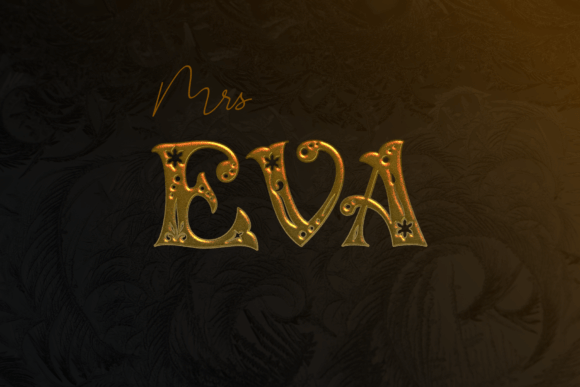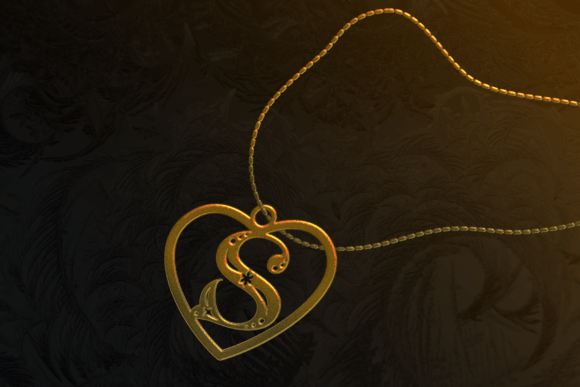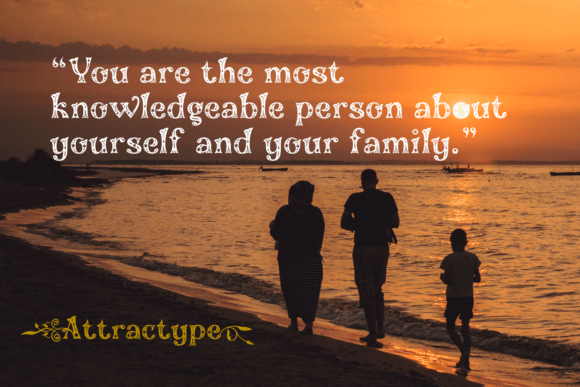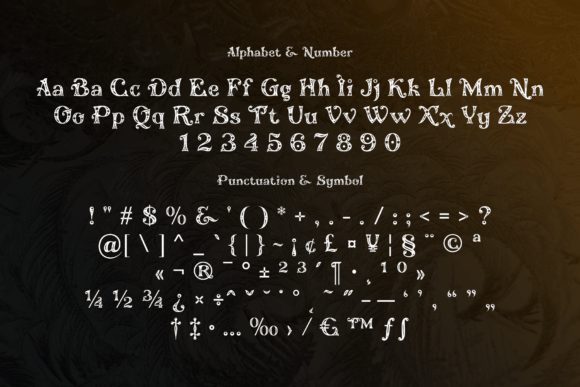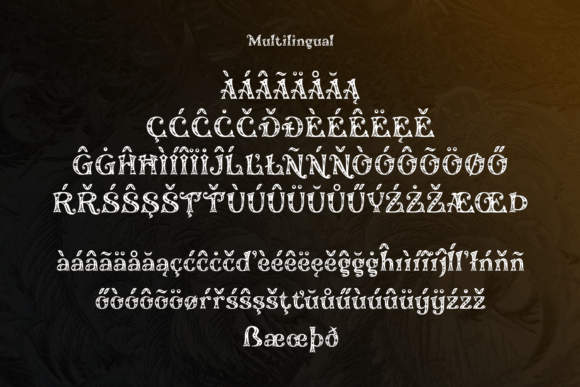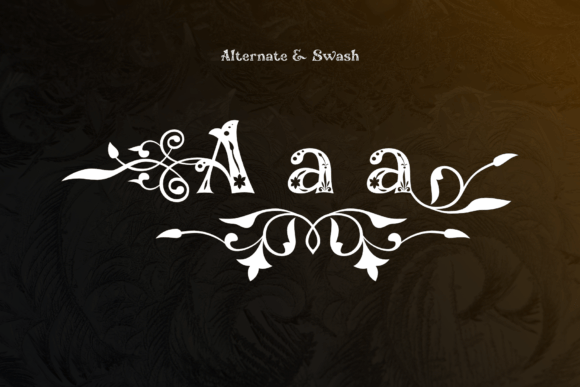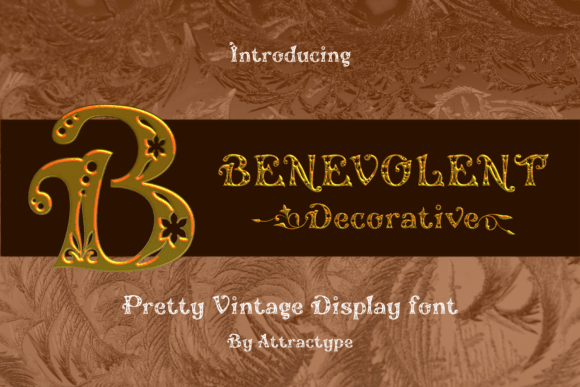
Unleash the Charm of Your Designs with the Benevolent Decorative Font
Have you ever stared at a blank page, struggling to find the perfect font to capture the essence of your creative vision? The blank page stares back, taunting you with its emptiness. But what if I told you that there’s a font that can bring your ideas to life with its unique charm and vintage flair?
Meet the Benevolent Decorative Font, a versatile display font that’s perfect for a wide range of projects, from elegant invitations and posters to stylish magazines and corporate identities. With its subtle touch and intricate design, this font is sure to add a touch of sophistication and elegance to any design. And with its PUA encoding, you’ll have effortless access to all glyphs and swashes, making it a valuable addition to any designer’s toolkit.
Benevolent Decorative Font Key Features
- Font Family: Benevolent Decorative Font is a unique, high-end font family designed for various applications, including signage, advertising, and editorial content.
- Unique Characteristics: Benevolent Decorative Font features intricate, hand-drawn designs, ornate details, and elegant flourishes, making it ideal for creating visually striking and sophisticated designs.
Benevolent Decorative Font Review
I must say, I was quite intrigued by the Benevolent Decorative Font when I first saw it. The unique, whimsical design is sure to grab attention and add a touch of personality to any project. ✨ The font’s bold, playful lines make it perfect for titles, headings, and other visual elements where you want to make a statement.
One of the things I appreciate about this font is its flexibility. It works well in a variety of contexts, from modern digital designs to more traditional, print-based projects. ✨ The font also supports a wide range of languages, making it a great choice for international projects.
- ⚠️ The font may be too bold for some projects, overpowering the surrounding design elements.
- ⚠️ The font’s decorative nature may not be suitable for projects where a more subtle, understated look is desired.
- ⚠️ Some users may find the font’s lines too thick or chunky, which can affect readability.
Overall, I think the Benevolent Decorative Font is a great choice for designers looking to add some personality to their projects. While it may not be suitable for every project, it’s definitely a valuable addition to any font library. ✨
For the most effective use of the Benevolent Decorative Font:
- Use it sparingly to avoid overwhelming the design.
- Pair it with a clear, readable font for body text.
- Experiment with different font sizes and colors to achieve the desired effect.
The Benevolent Decorative Font is ideal for: